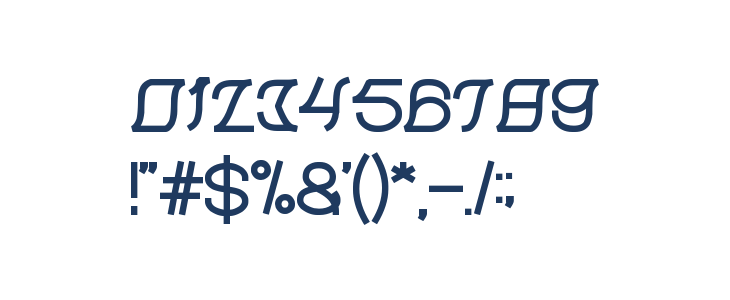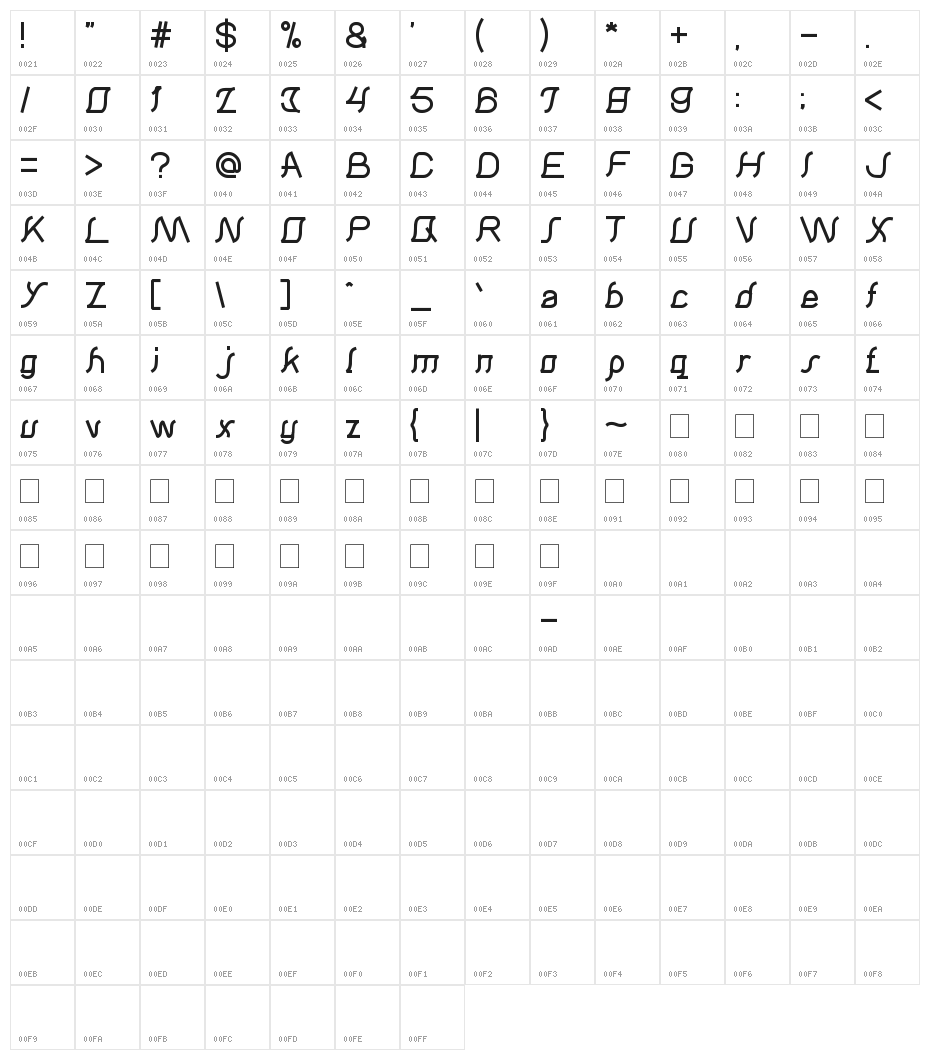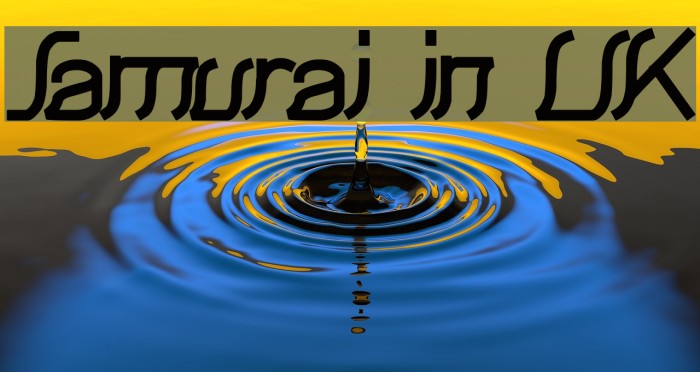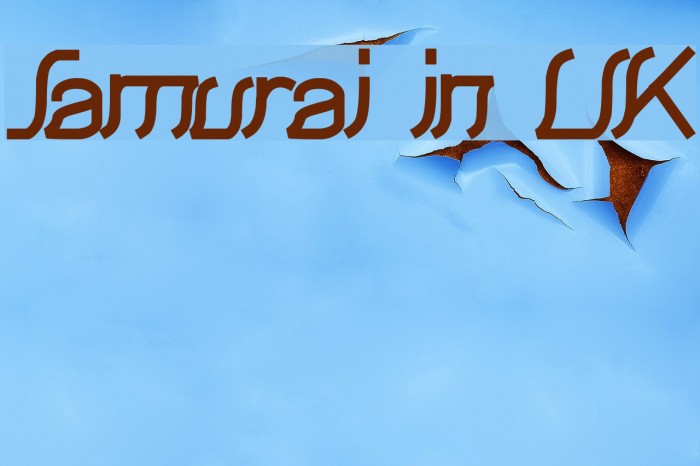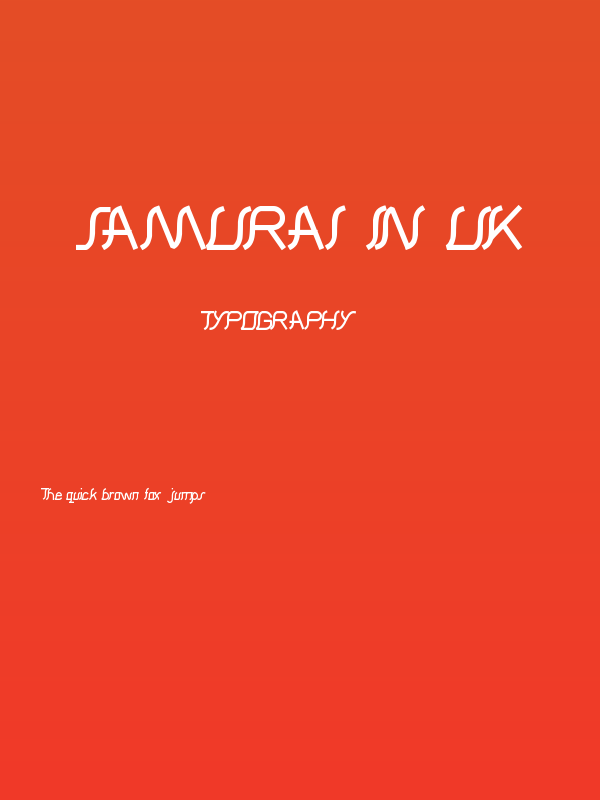
Samurai in UK Font
Samurai in UK Description
This font features a unique blend of modern and traditional elements, characterized by its angular and geometric shapes. The uppercase letters have a distinct, sharp appearance with a futuristic edge, while the lowercase letters maintain a consistent style that complements the uppercase. The numerals are bold and easily readable, making them suitable for various applications. Special characters are designed with the same angular aesthetic, ensuring a cohesive look across all glyphs. The font's overall design is both striking and versatile, making it suitable for a wide range of creative projects.
| Proposed Projects | Ideal for branding, posters, and digital media where a bold, modern look is desired. |